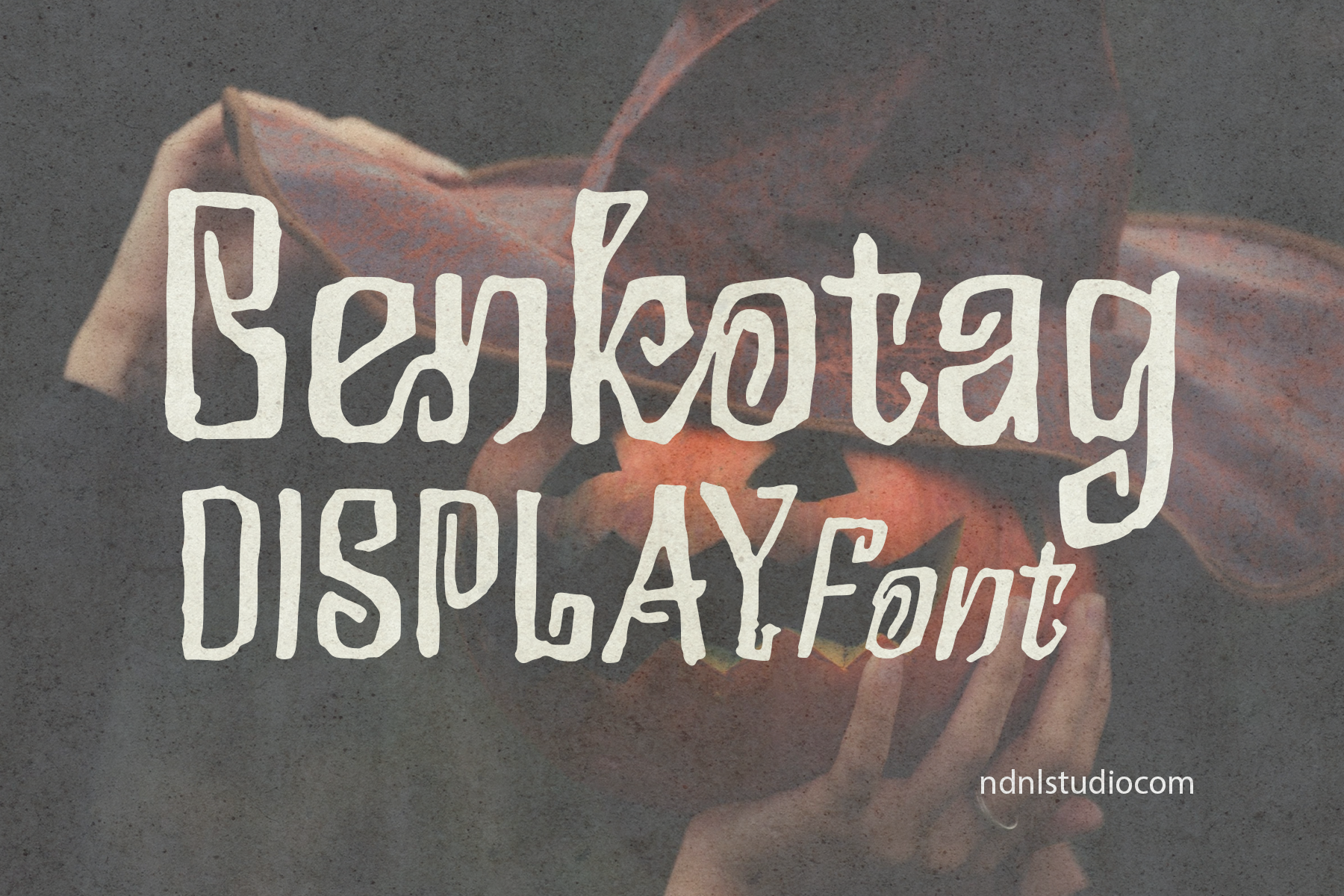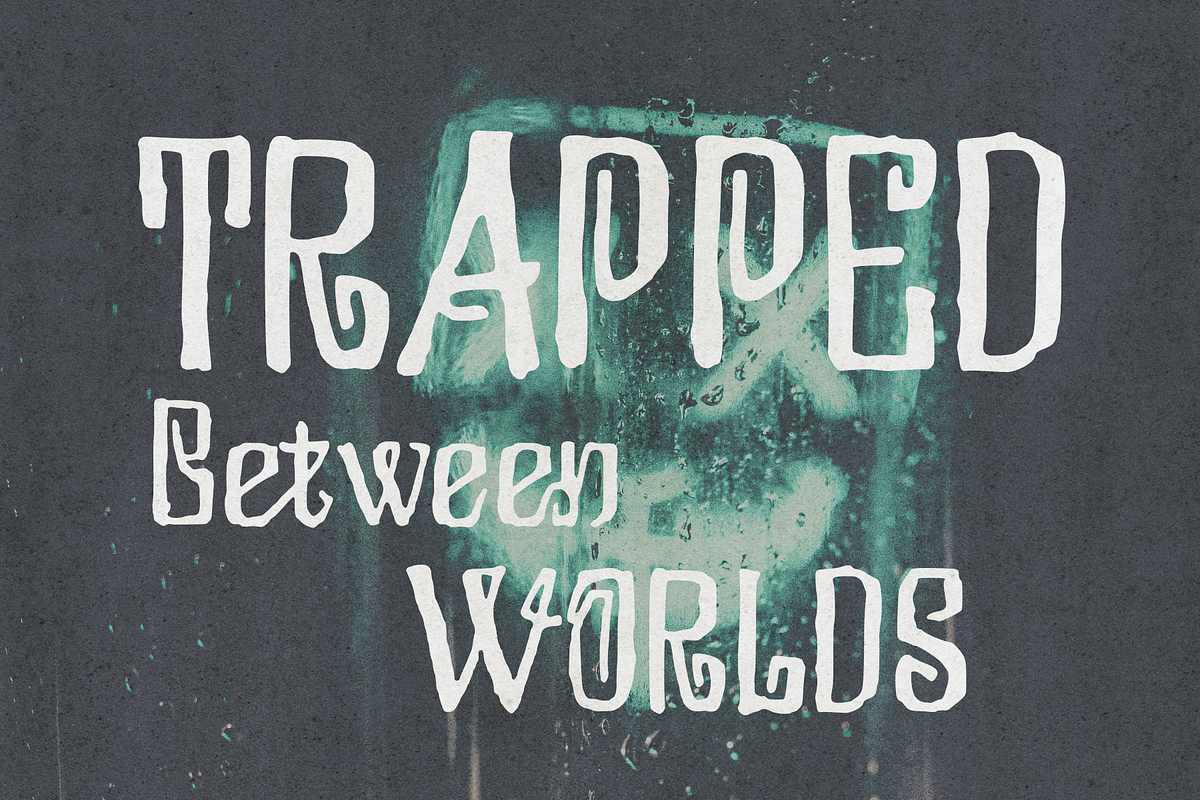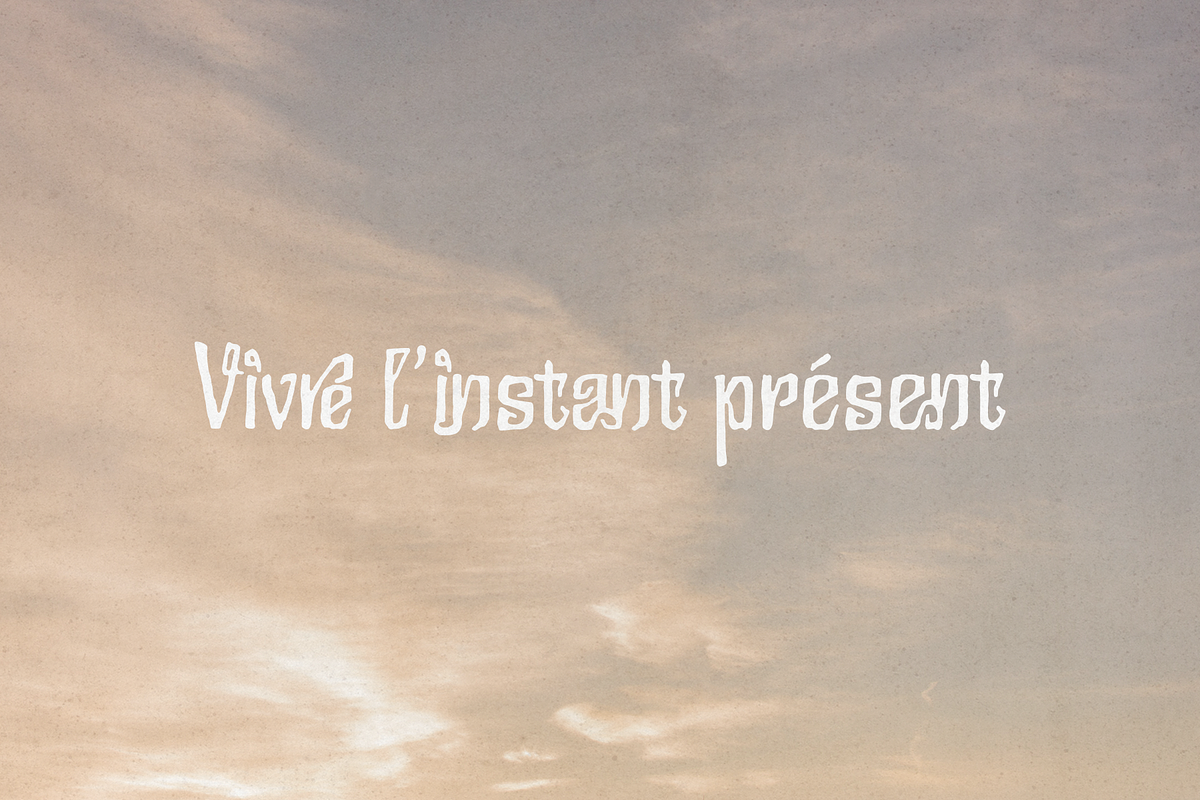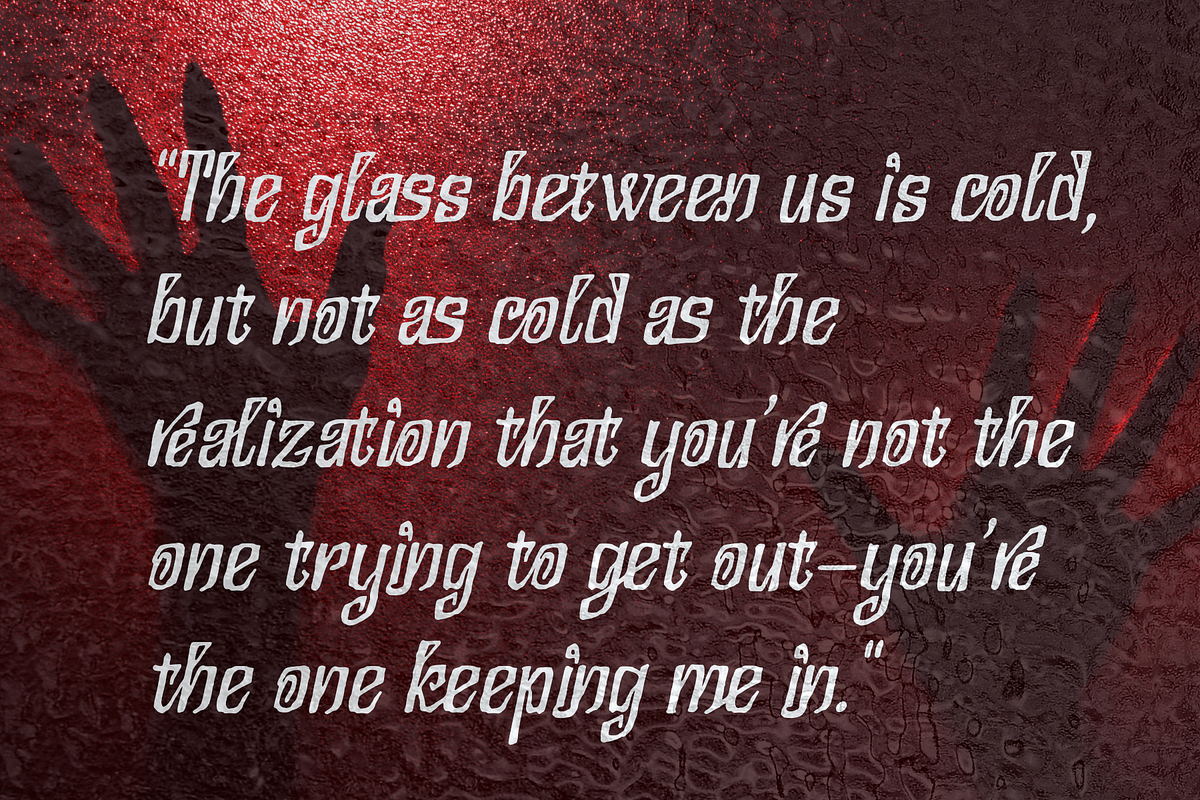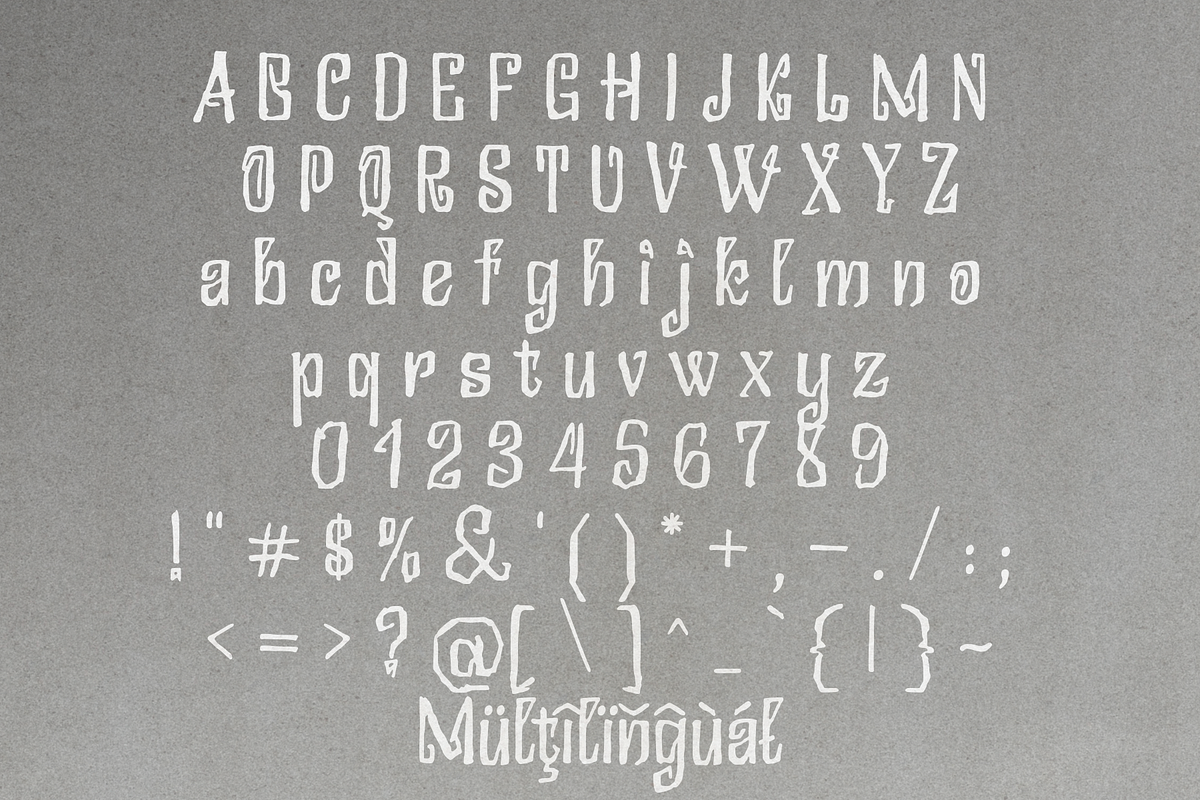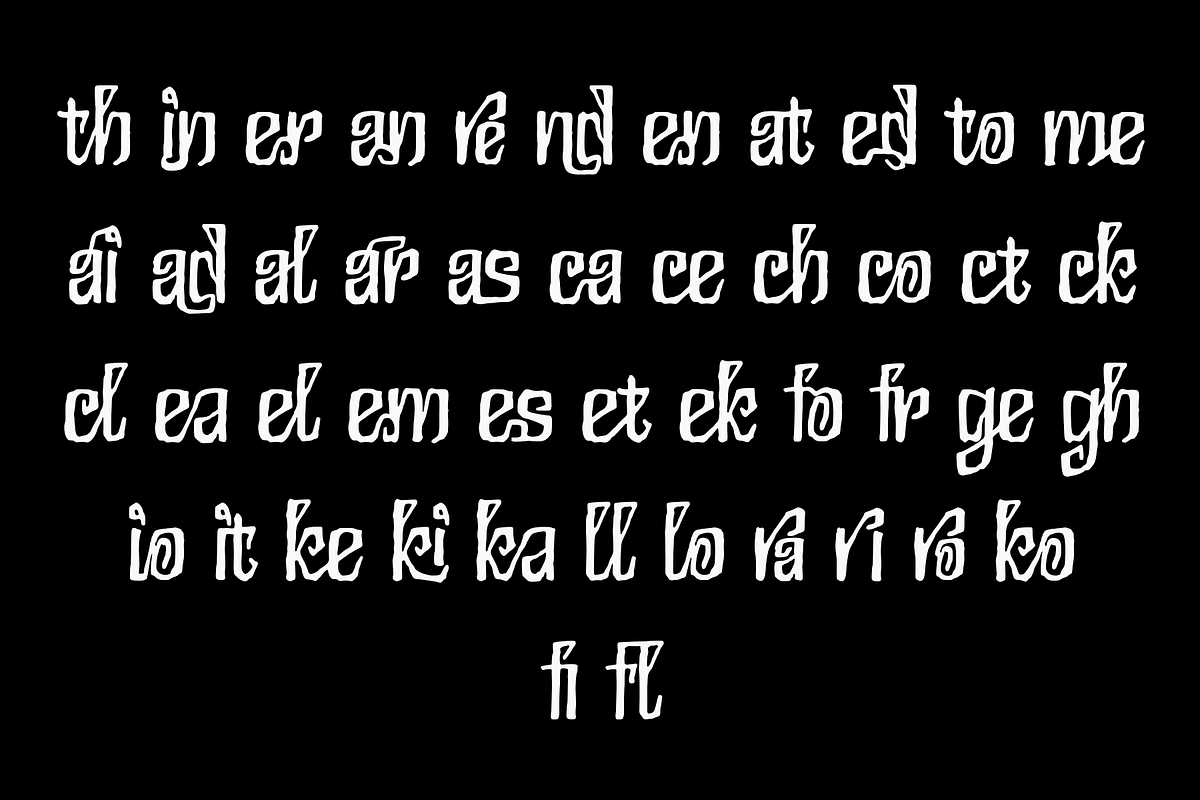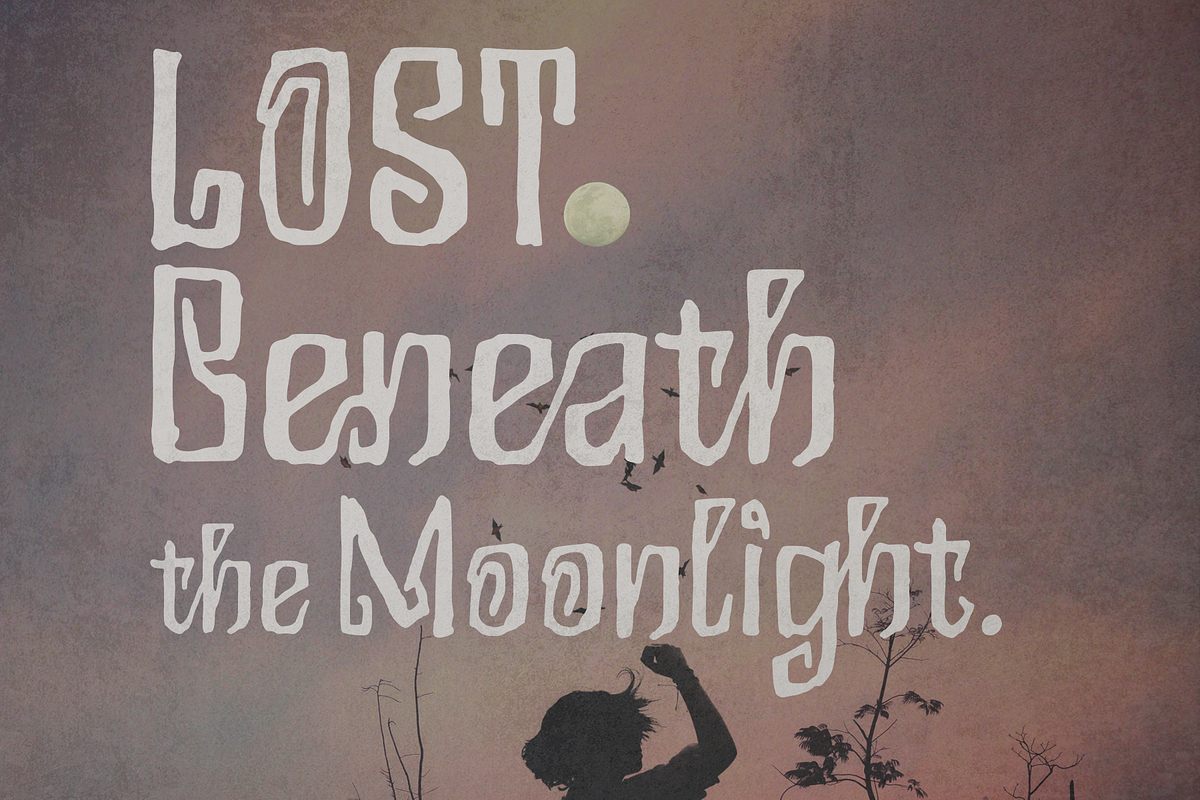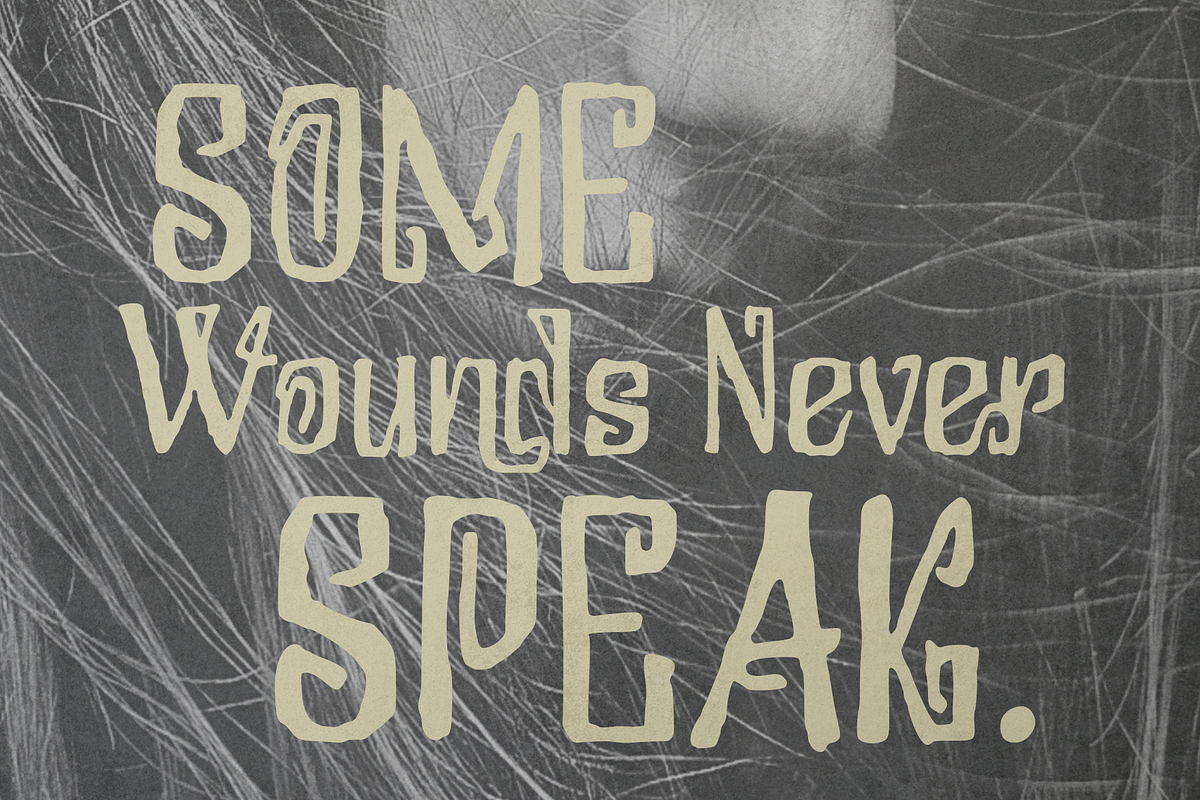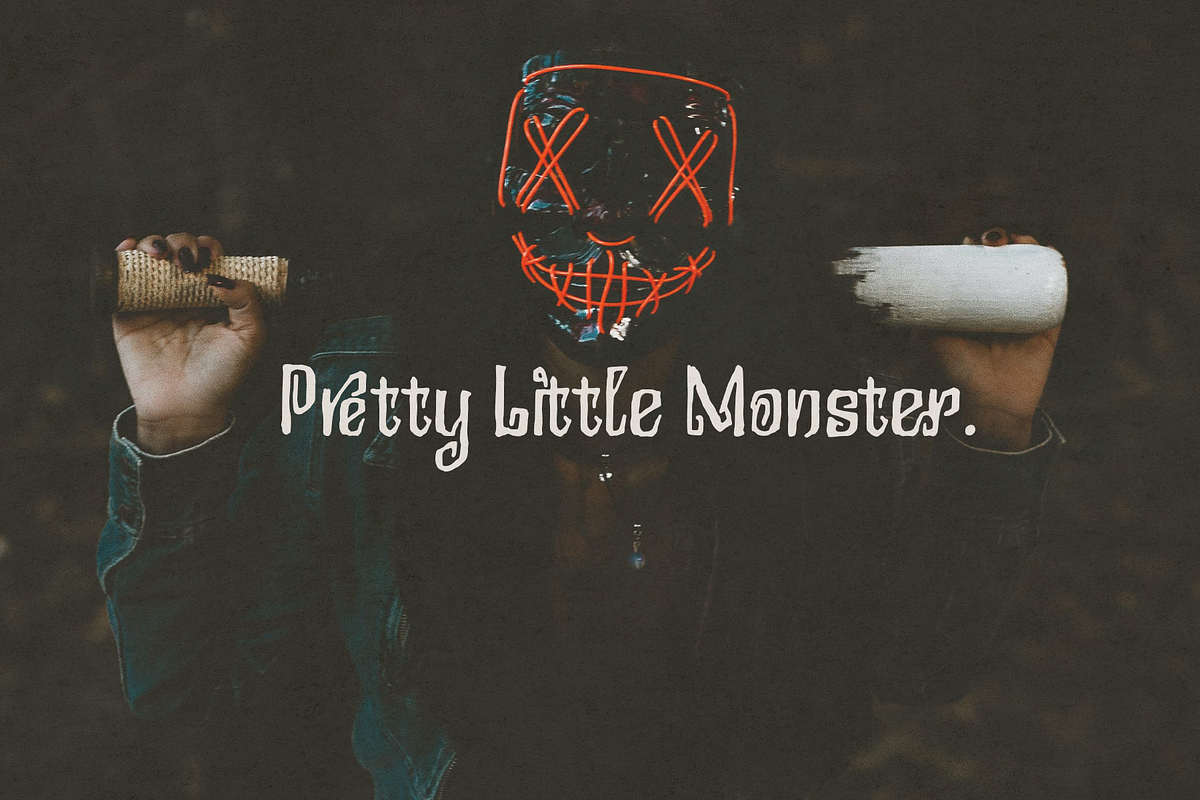
Benkotag - Display Font
Benkotag is a unique display typeface with a raw, unconventional, and artistic character. Featuring uneven strokes, subtle distortions, and a handcrafted feel, it delivers a distinctive and mysterious visual presence. Perfect for posters, book covers, branding, headlines, fashion design, Halloween-themed designs, horror concepts, or vintage and gothic-inspired projects, Benkotag adds depth, mystery, and personality to any creative work. Its irregular letterforms create a strong emotional and authentic touch, making every design stand out.
– Character set A-Z
– Uppercase & Lowercase
– Numerals & Punctuation
– Accented Characters (West Europe)